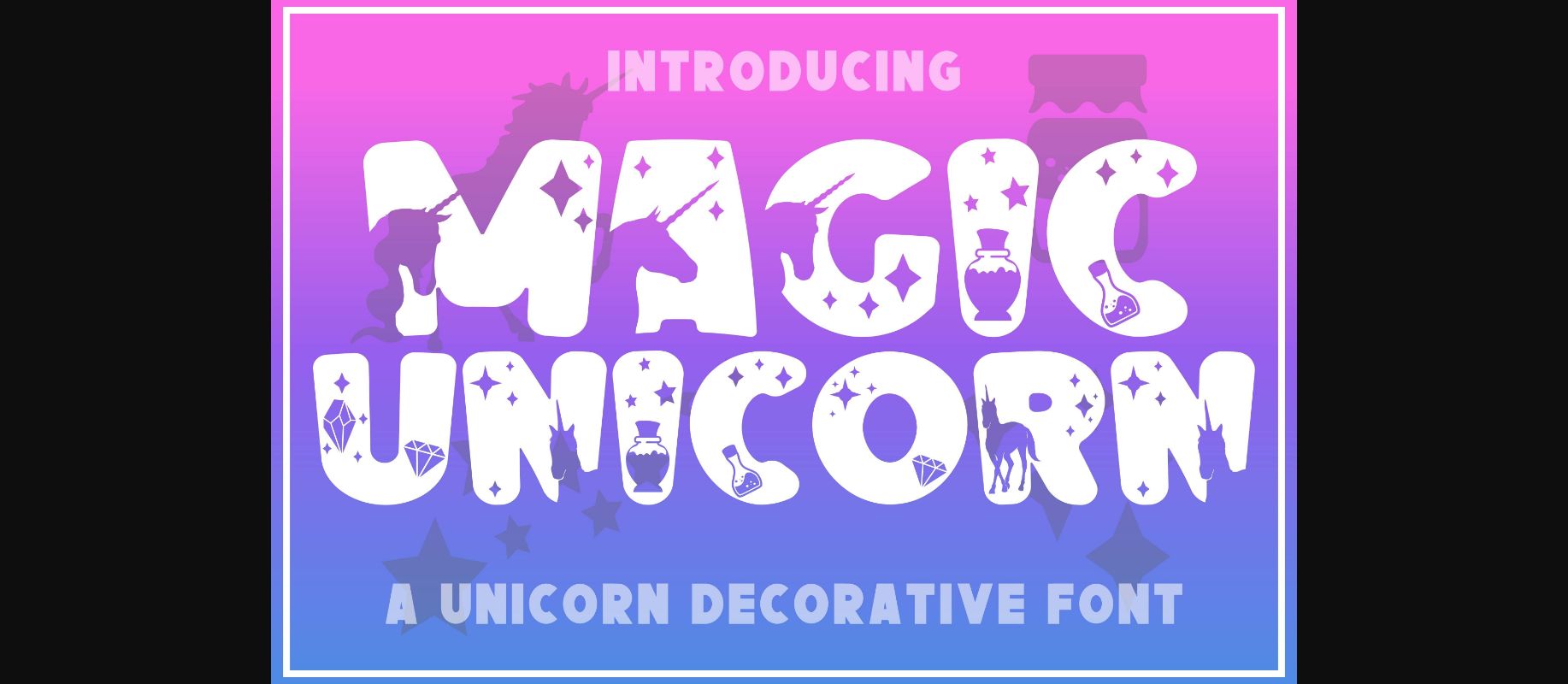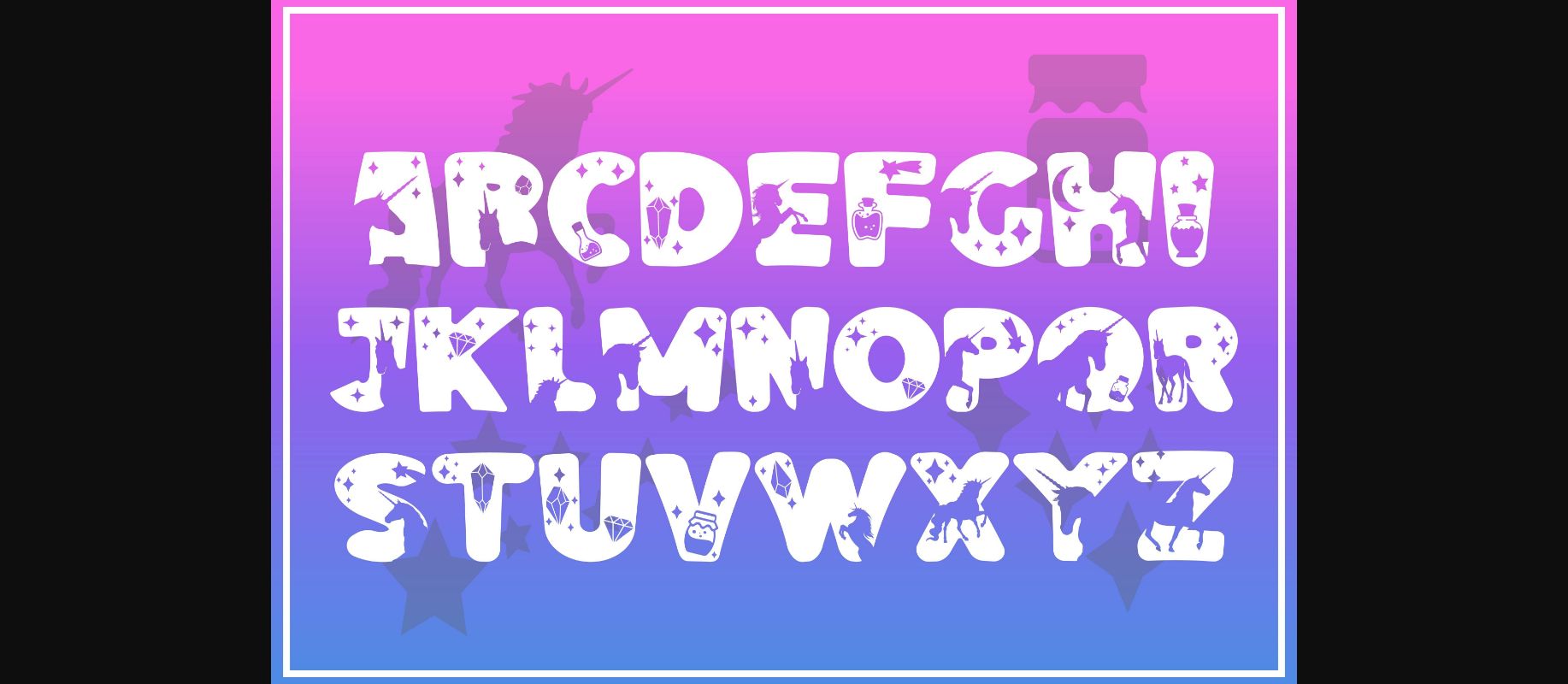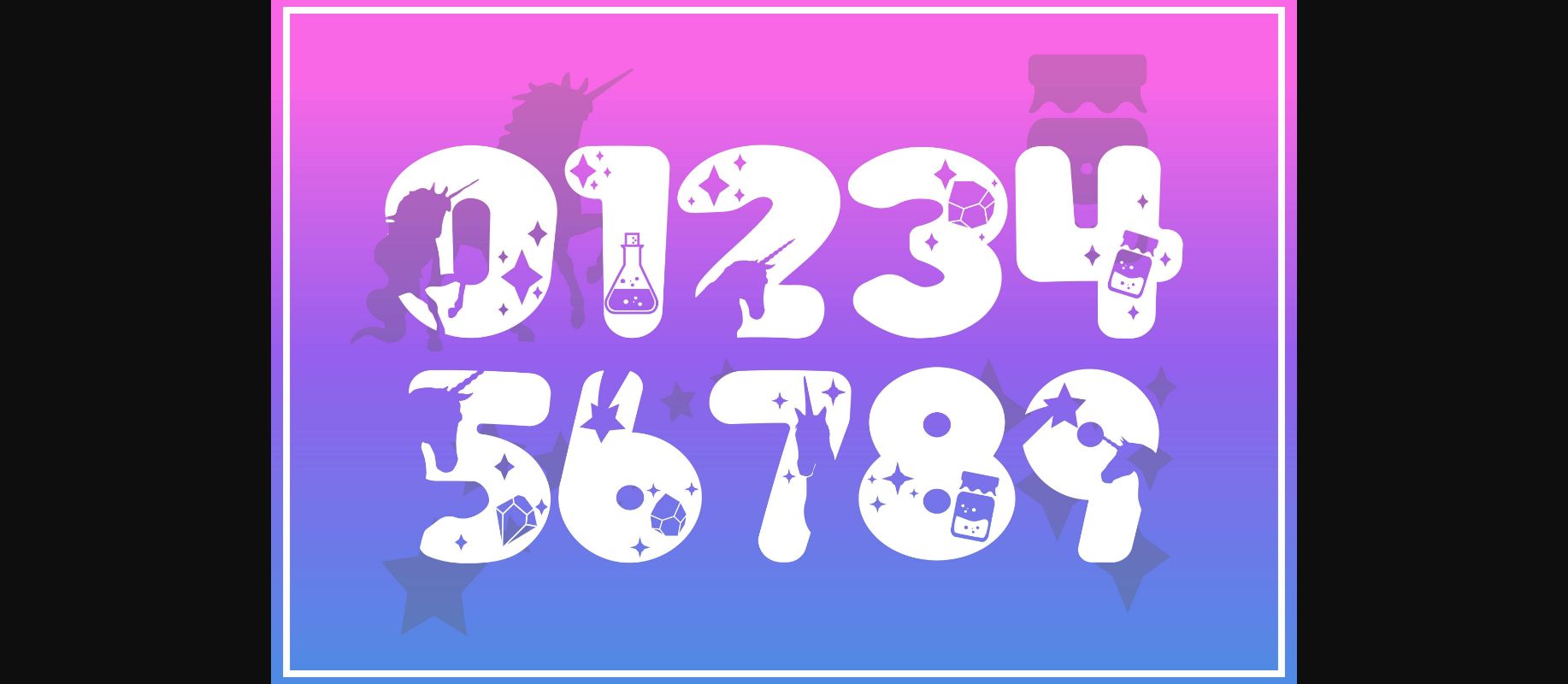
HomeDecorative FontsMagic Unicorn Font Decorative Fonts Magic Unicorn Font FacebookXPinterestWhatsApp 1 of 5 ... Magic Unicorn Font Poster 2... Magic Unicorn Font Poster 3... Magic Unicorn Font Poster 4... Magic Unicorn Font Poster 5... About Magic Unicorn Font Magic Unicorn is a fun, jolly, and incredibly charming decorative font. It embodies playfulness and authenticity and is the perfect choice for any children’s activity or school project. DOWNLOAD NOW People also explored Bapeg Font Arttyne Font Grania Hanna Font Goswell Font Happy Family Font Autograph Font Blue Triblend Bella Canvas 134B Mockup Fetwalkers Font Cirquesa Font 336 0 TagsMagic Unicorn Font Previous articleMonique FontNext articleWildflowers Font LEAVE A REPLY Cancel reply Comment: Please enter your comment! Name:* Please enter your name here Email:* You have entered an incorrect email address! Please enter your email address here Website: Save my name, email, and website in this browser for the next time I comment. Personal Use Free Lumber Personal Use Free Read more about this font Playground Clip Art Personal Use Free Read more about this font Metal Lord Personal Use Free Read more about this font Ginóra Personal Use Free Read more about this font BLOG How to Install and Use Fonts on Windows, macOS, and Web Projects How to Install and Use Fonts on Windows, macOS, and Web Projects Fonts are a crucial part of design and branding. Whether you’re designing a... Modern Sans-Serif Fonts That Brands Love in 2025 To increase your work productivity, choose the most readable fonts. Top 7 Google Fonts Alternatives for Faster and Privacy-Friendly Web Design (2025)